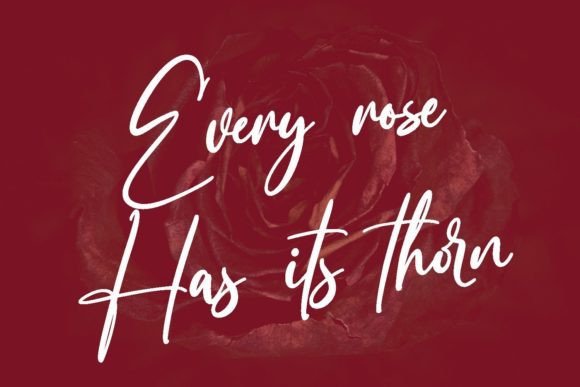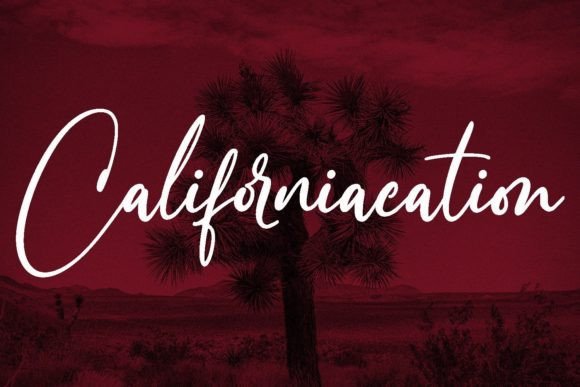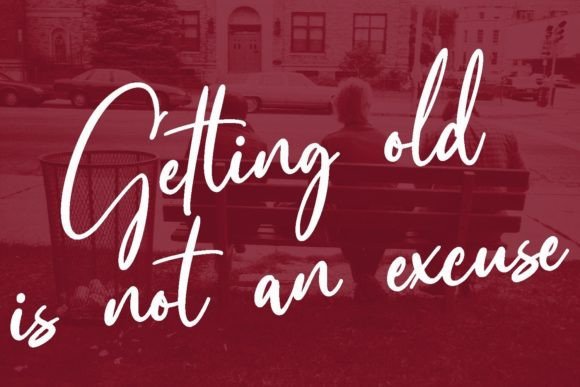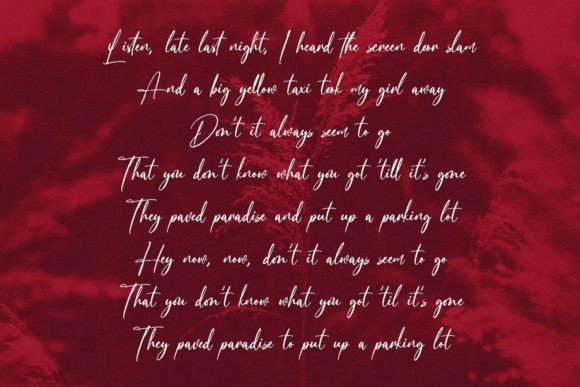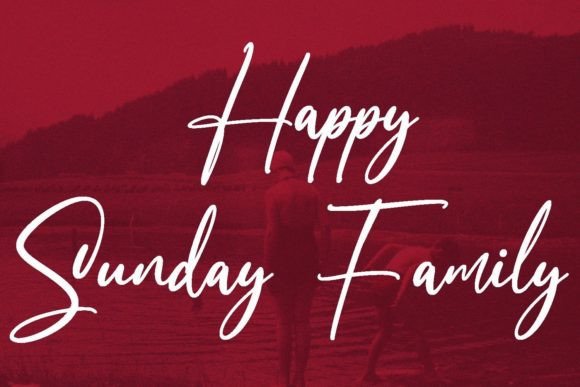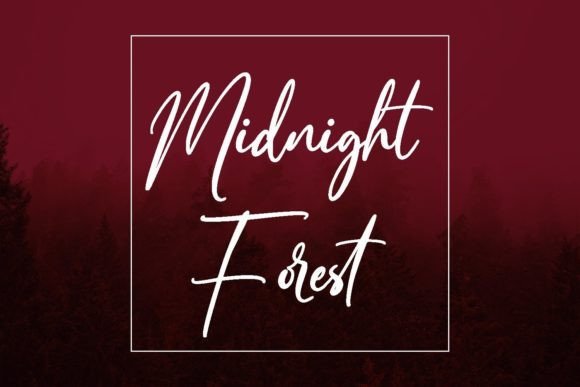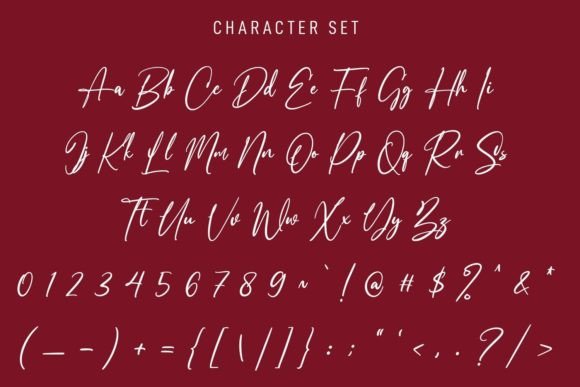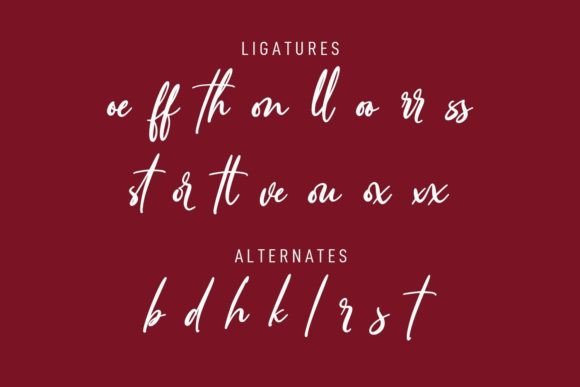
Diveshorts Font
About Diveshorts Font
“Diveshorts” is a luxurious and fancy signature script font that exudes elegance and sophistication. Its beautifully crafted and well-balanced characters give it a touch of refinement, making it a perfect choice for a wide range of design projects. This font adds a sense of class and charm to your creations, elevating them to new levels of visual appeal.
The font’s stylish and flowing strokes create a seamless and harmonious script, capturing the essence of a handwritten signature. Its versatile design allows it to match a diverse pool of designs, making it suitable for various applications such as branding, logos, wedding invitations, business cards, and any project that demands a touch of elegance.
When you incorporate “Diveshorts” into your creative ideas, you’ll notice how it breathes life into them, adding a sense of sophistication and grace. Its fancy and well-balanced characters make your text look effortlessly stylish, creating a lasting impression on your audience. Whether used for formal events or high-end branding, this font has the power to transform your designs into visually stunning masterpieces.
Embrace the luxurious vibe of “Diveshorts” and let it inspire your creativity. Watch as it enhances your most creative ideas, making them come alive with its elegant touch. Whether used in print or digital media, this font adds a touch of glamour and finesse to your designs, ensuring that they stand out and leave a lasting impact. With “Diveshorts,” you can confidently create sophisticated and visually captivating designs that reflect your impeccable taste and creativity.